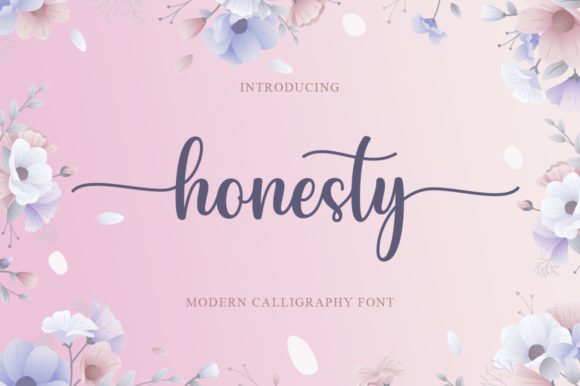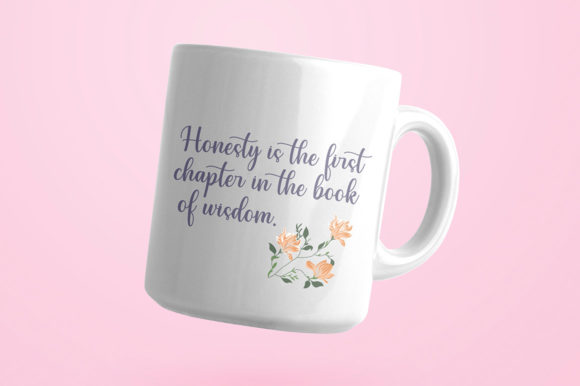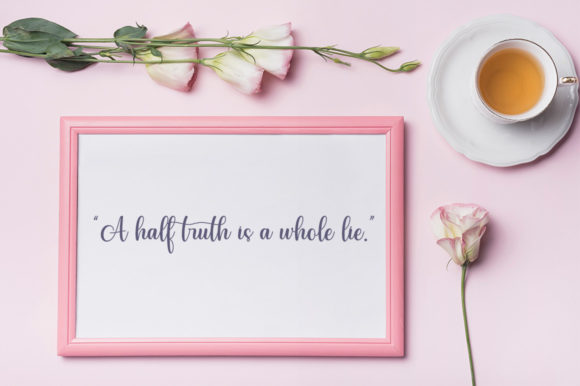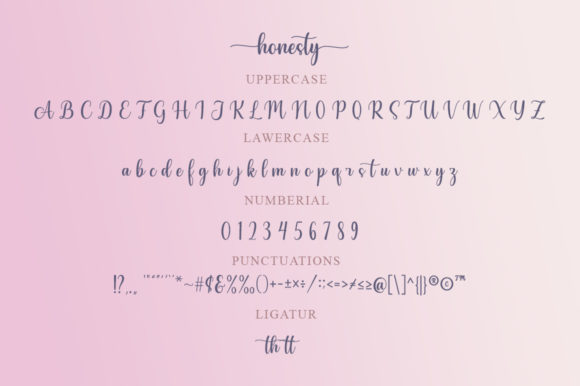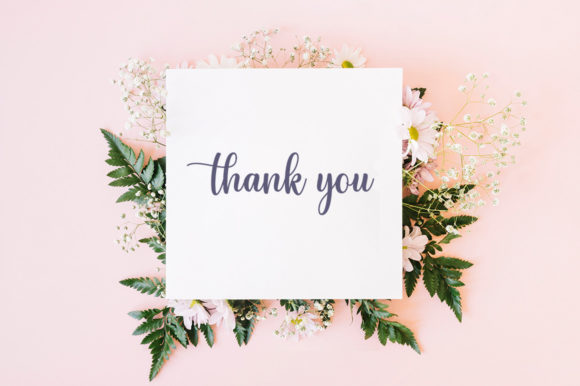
Discovering the Perfect Font: When Inspiration Strikes
There’s nothing quite like the feeling of being completely in the zone, surrounded by scraps of paper, paint-splattered canvases, and the soft hum of a coffee shop. It’s in these moments that ideas begin to flow, and the world of design comes alive. And for designers, one of the most crucial elements of bringing a concept to life is choosing the right font.
Enter the Honesty Font, a timeless and elegant handwritten font that’s perfect for crafting eye-catching logos, branding, and quotes. With its unique charm and character, this font is sure to elevate any design project to the next level. But what makes the Honesty Font truly valuable for designers is its PUA encoding, allowing for seamless access to all of its glyphs and swashes.
Honesty Font Key Features
- Unique Characteristics: The Honesty Font features a unique blend of modern and traditional elements, with clean lines, rounded edges, and subtle texture, making it suitable for a wide range of design projects.
Honesty Font Review
I was excited to dive into the Honesty Font and see what it had to offer. After some time with it, I’ve come to a conclusion.
- Honesty Font does a great job of conveying a sense of trust and openness. Its clean lines and straightforward style make it perfect for designs that need to come across as genuine and transparent.
- The font is highly legible, even at smaller sizes, which is a must-have for any font. I can easily see it being used in a variety of applications, from business cards to product labels.
- The font family includes a range of weights and styles, giving designers a lot of flexibility when it comes to choosing the right look and feel for their project.
- The font may feel a bit too straightforward and lacking in personality for some designers. In a world where unique and quirky fonts are all the rage, Honesty Font may feel a bit too safe and boring.
- The font could benefit from more expressive and creative uses of the style to really make it stand out.
Overall, I think the Honesty Font is a solid choice for designers who need a font that conveys trust and openness. While it may not be the most exciting font out there, it gets the job done and is highly versatile. If you’re looking for a font that will help you build trust with your audience, Honesty Font is definitely worth considering.
Use the Honesty Font to create visually appealing and authentic designs, such as social media graphics, blog posts, and infographics.
Use the Honesty Font to create professional-looking designs, such as brochures, business cards, and presentations.
Use the Honesty Font to create engaging and authentic presentations, reports, and documents.